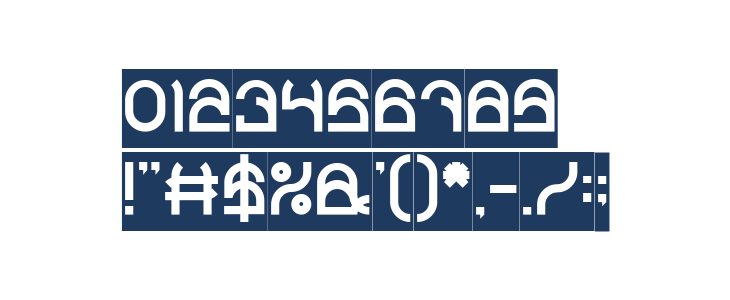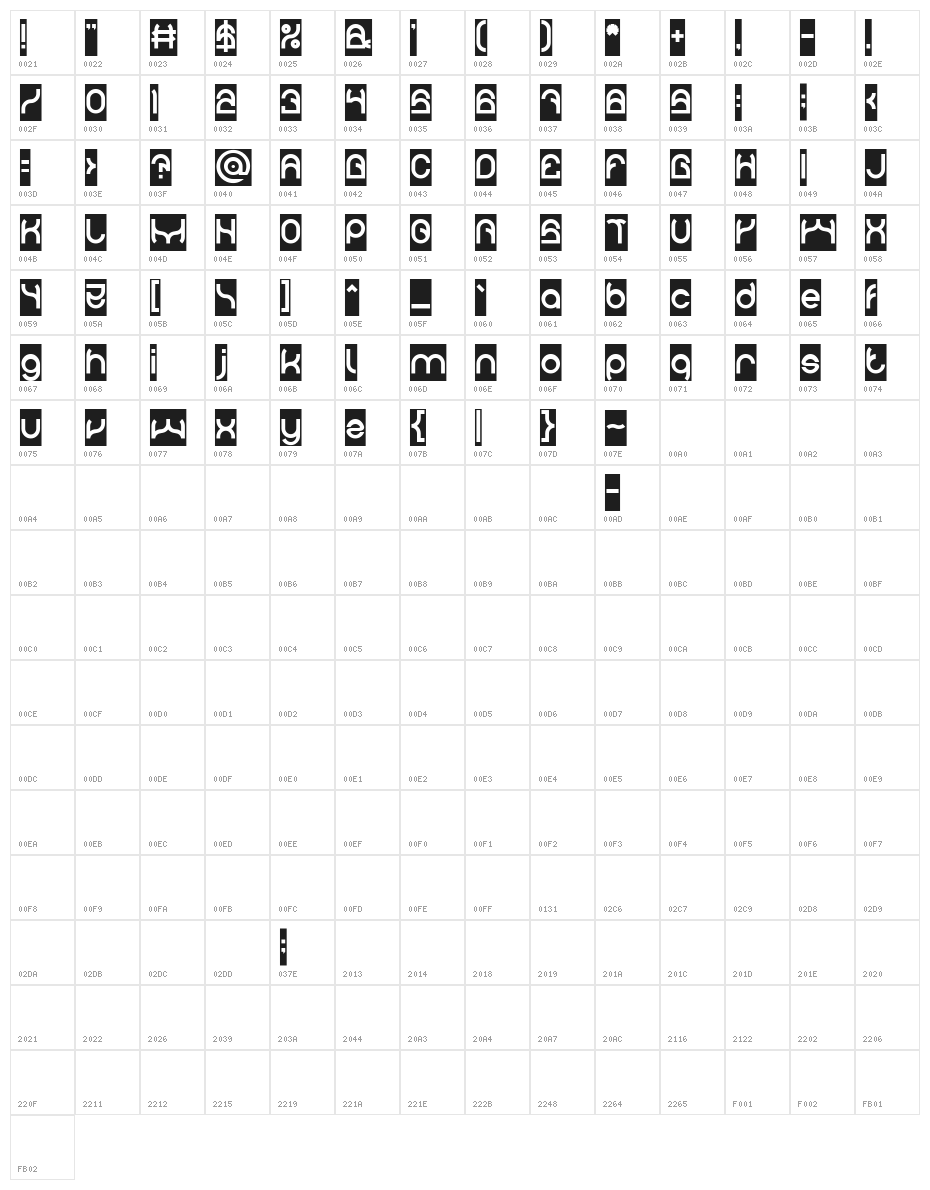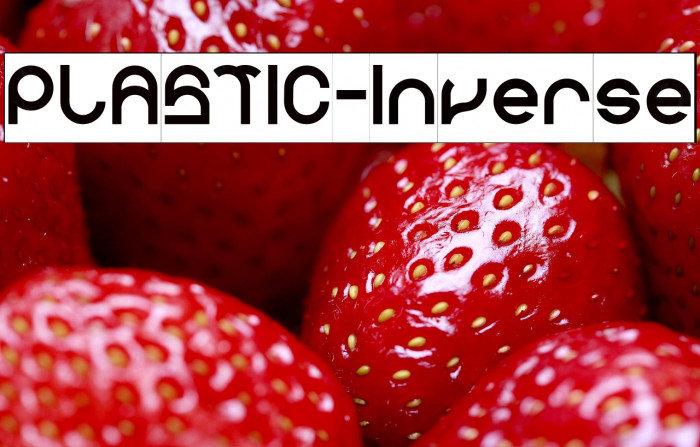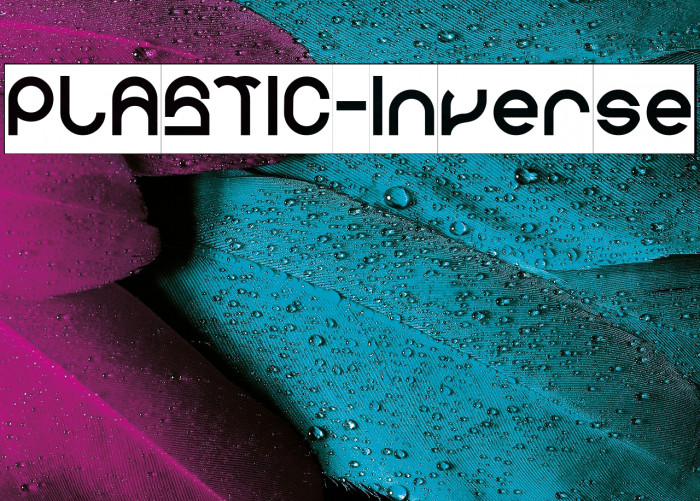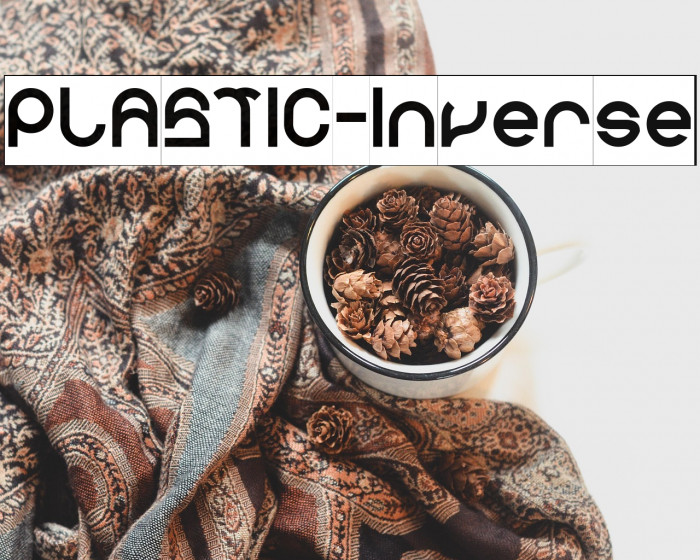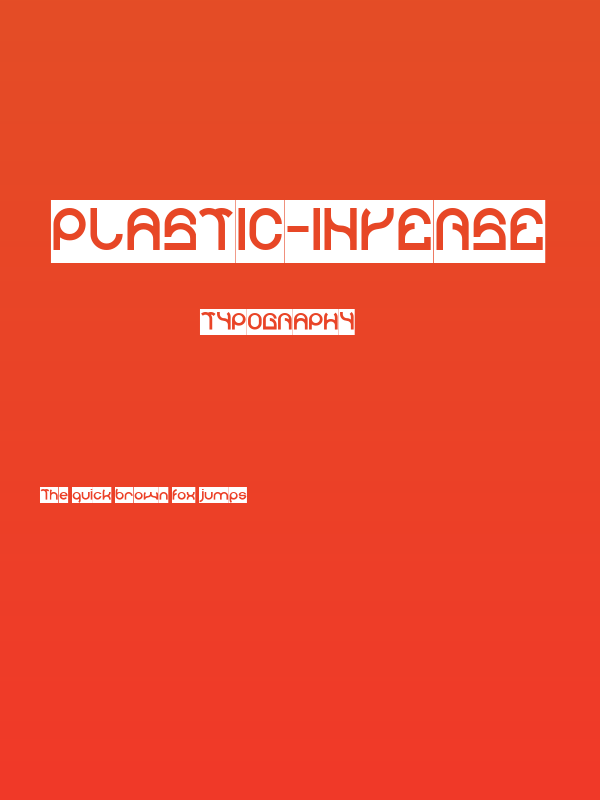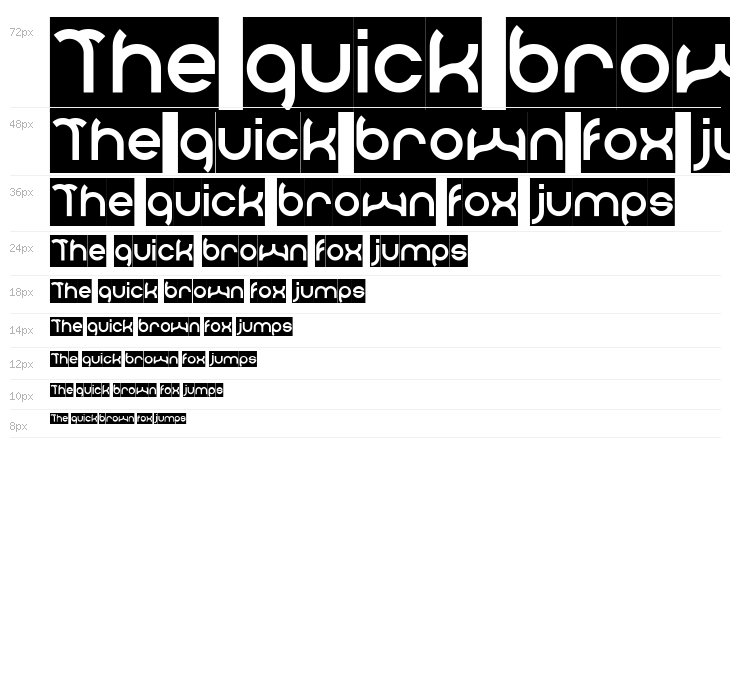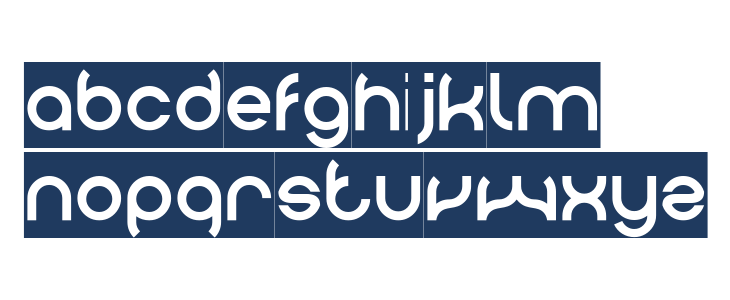
PLASTIC-Inverse Font
PLASTIC-Inverse Description
This font features a bold and futuristic design with a unique inverse style that creates a striking visual impact. The characters are crafted with a geometric approach, incorporating sharp angles and smooth curves that give it a modern and edgy appearance. The uppercase and lowercase letters maintain a consistent style, while the numerals and special characters are designed to complement the overall aesthetic. The font's distinctive look makes it suitable for projects that require a contemporary and eye-catching typeface.
| Proposed Projects | Ideal for branding, posters, album covers, and digital media that require a modern and bold typeface. |